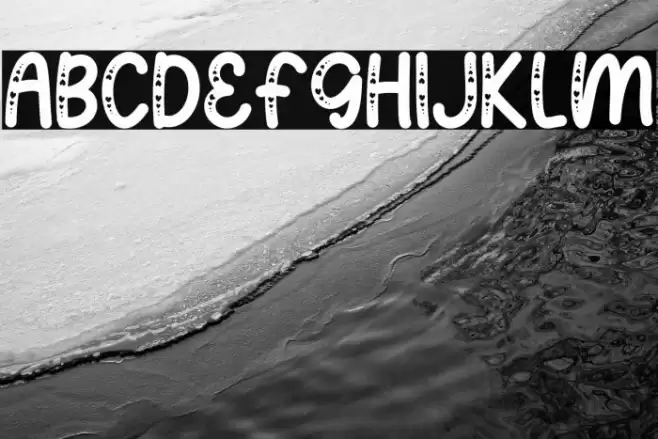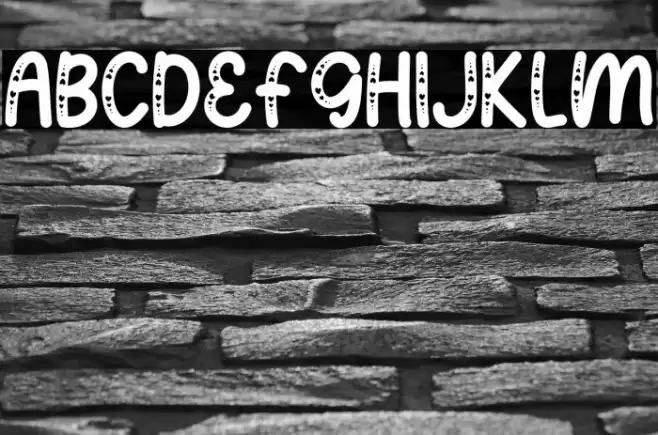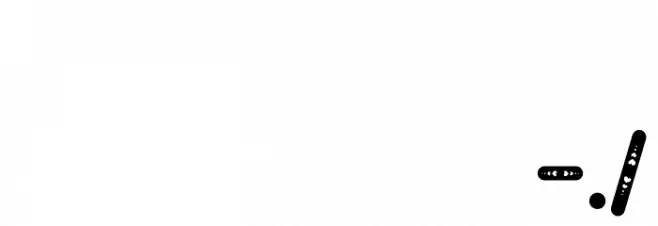
Lonely Girl Love Font
Lonely Girl Love Description
This playful and whimsical font features a unique design with decorative dots inside each character, giving it a lively and cheerful appearance. The letters are rounded and bold, with a consistent stroke width that adds to its friendly and approachable style. The font maintains a uniform height across both uppercase and lowercase letters, ensuring readability while maintaining its distinct character. The inclusion of special characters like punctuation marks is consistent with the overall design, making it versatile for various creative applications.
A playful, dotted decorative font with bold, rounded characters from Cartoon fonts.
- Proposed Projects: Ideal for children's books, playful branding, greeting cards, and creative posters.
- Overall Style: Playful